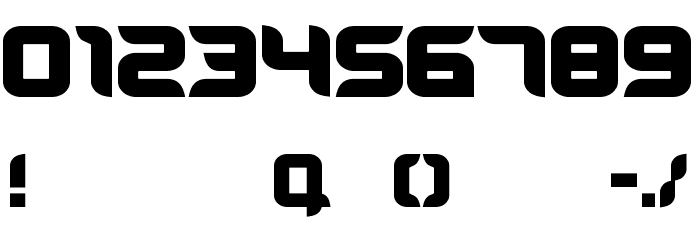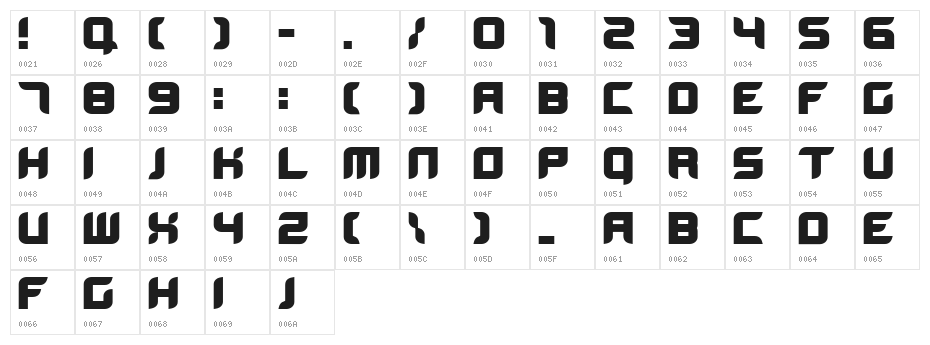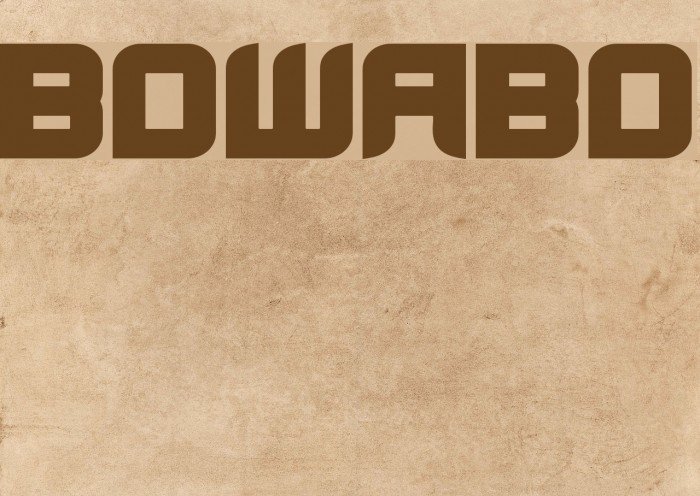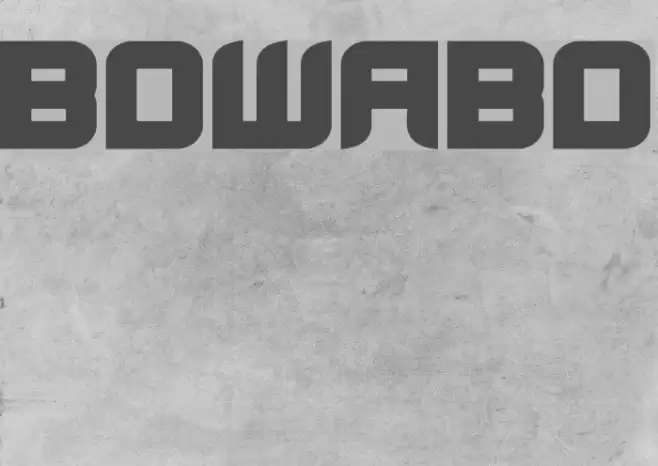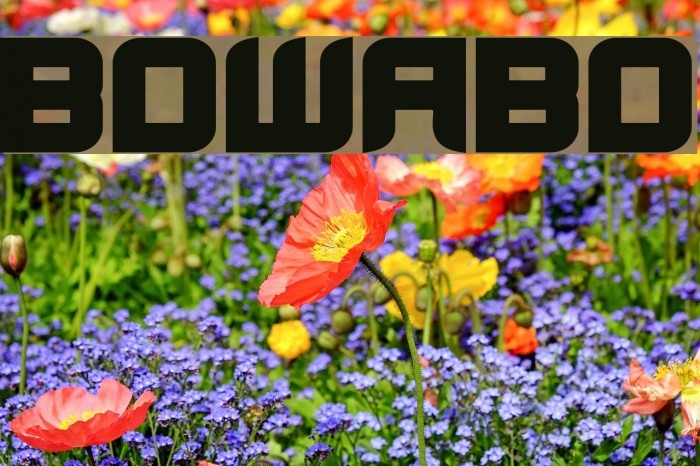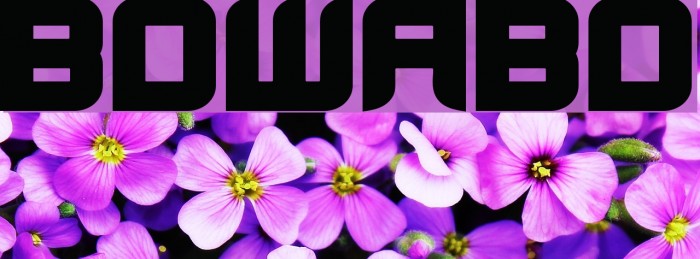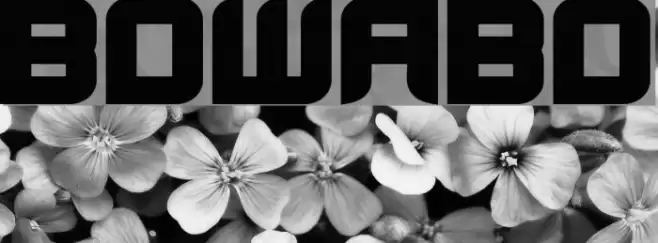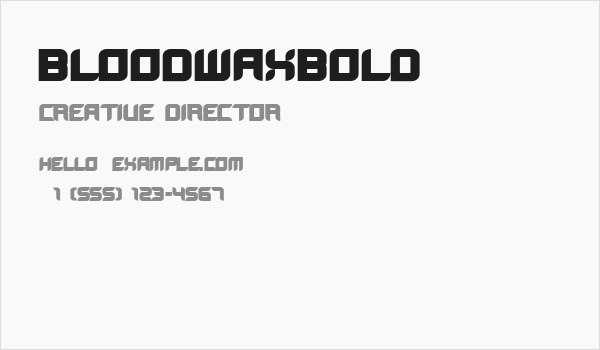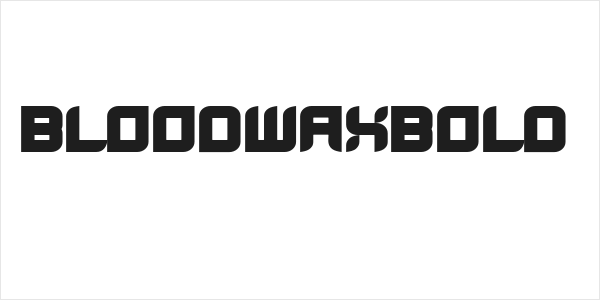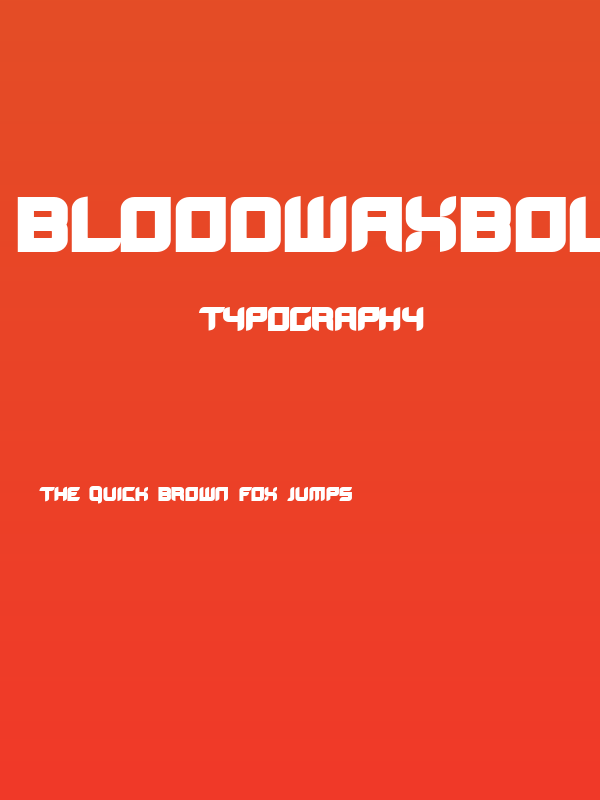
BloodWaxBold Font
BloodWaxBold Description
This font features a bold, futuristic design with strong geometric shapes and a distinctive, angular style. The characters are uniformly thick, creating a sense of solidity and strength. The uppercase letters are particularly striking, with sharp edges and a modern aesthetic that suggests movement and dynamism. The numbers and special characters maintain this cohesive look, making the font suitable for attention-grabbing headlines or logos. Its unique style is reminiscent of sci-fi themes, making it ideal for projects that require a bold, modern touch.
| Proposed Projects | Ideal for sci-fi themed projects, video game titles, technology branding, and modern logos. |